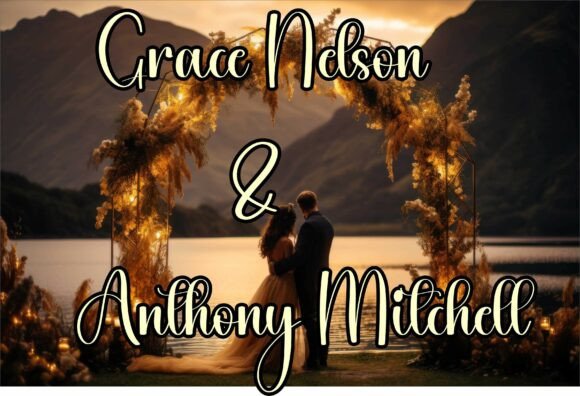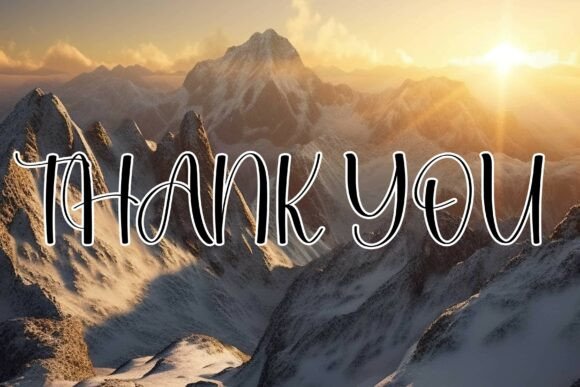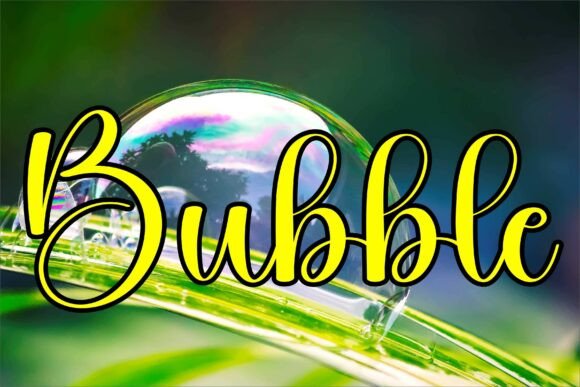
Bubble Font – The Playful Typeface That Brings Joy to Your Designs
Have you ever been working on a design project, and suddenly, it just feels like something is missing? You’re not quite sure what it is, but you know it’s not quite right. I recall a project where I was designing a children’s book, and I was struggling to find the perfect font. The text needed to be fun, playful, and engaging, but also easy to read. That’s when I stumbled upon Bubble Font, and it instantly transformed my design into a lively and cheerful creation.
What Makes Bubble Font So Special?
Bubble Font is a charming typeface that’s perfect for creating joyful, youthful, and friendly designs. Its soft, rounded edges and bubbly shapes add a touch of fun to every project. Here are some of its key features:
- Versatile Use: Ideal for children’s books, greeting cards, party invitations, logos, social media graphics, posters, and branding projects.
- Playful Style: Rounded, bouncy letters give your text a cheerful and approachable personality.
- Uppercase & Lowercase: Complete set of letters, numbers, punctuation, and special characters.
- Multilingual Support: Works for English and many other Latin-based languages.
Why You’ll Love Bubble Font
Bubble Font instantly transforms your design into a fun and memorable creation. Its soft curves and friendly style make it perfect for brands, projects, and designs that need a playful touch. Here are some reasons why you’ll love Bubble Font:
- ✨ It’s perfect for creating designs that appeal to a younger audience or anyone looking for a fun and playful vibe.
- ✅ It’s incredibly versatile and can be used for a wide range of projects.
I’ve had the chance to work with Bubble Font on several projects, and here’s my honest review:
- ✨ The playful and cheerful vibe it brings to my designs.
- ✅ The soft, rounded edges and bubbly shapes that make it so visually appealing.
- 🤔 The font may not be suitable for more formal or professional designs, as it’s quite playful and attention-grabbing.
- ⚠️ Some users may find the font a bit too “childish” for their taste, but I believe that’s part of its charm.
Bubble Font comes with a range of OpenType features and glyphs that allow you to customize your text and make it more visually appealing. Here are some tips on how to access and use these features:
- Experiment with different stylistic alternates, ligatures, and swashes to add personality to your text.
The Designer Inspiration Behind Bubble Font
The designer behind Bubble Font was inspired by the playful and whimsical world of children’s books and illustrations. They wanted to create a font that would bring joy and happiness to designs, while also being easy to read and versatile. The result is a charming typeface that’s perfect for creating fun and engaging designs.